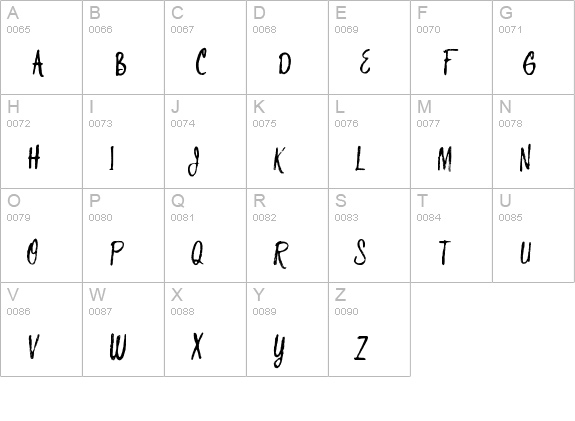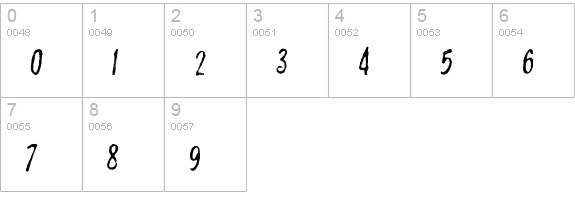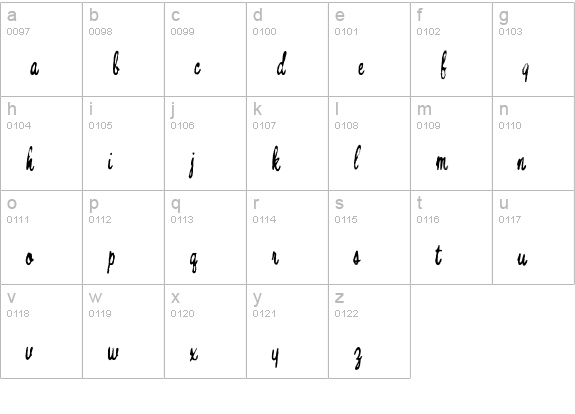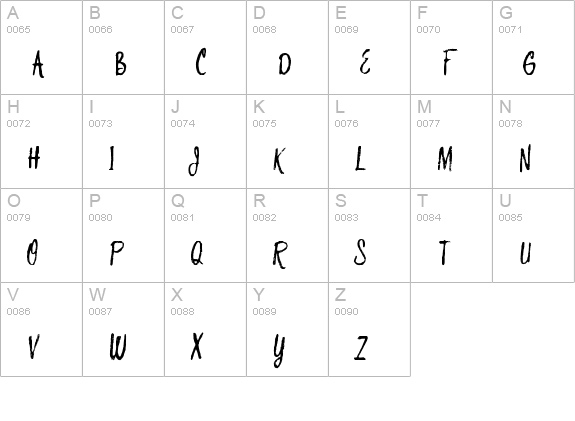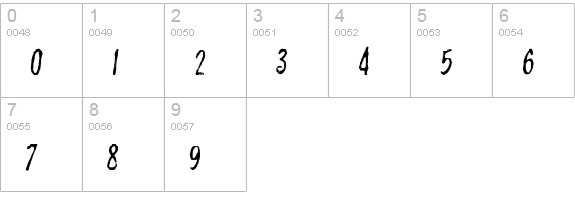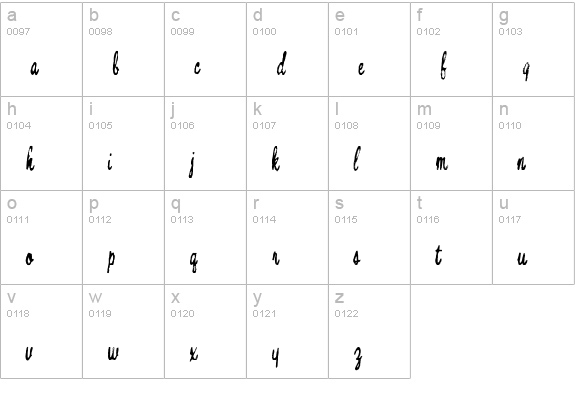
Bouffant font is a charming and elegant typeface that exudes a sense of sophistication and vintage flair. With its stylish curves and unique design, Bouffant font adds a touch of class to any project it graces. Whether you're looking to elevate your branding, create eye-catching headlines, or add a touch of nostalgia to your designs, Bouffant font is the perfect choice. The best part? Bouffant font is available for free download at FontsMarket.com. This means you can easily access this beautiful font and use it in your projects without any cost. Don't miss out on the opportunity to enhance your designs with the timeless appeal of Bouffant font. Download it today and let your creativity shine!